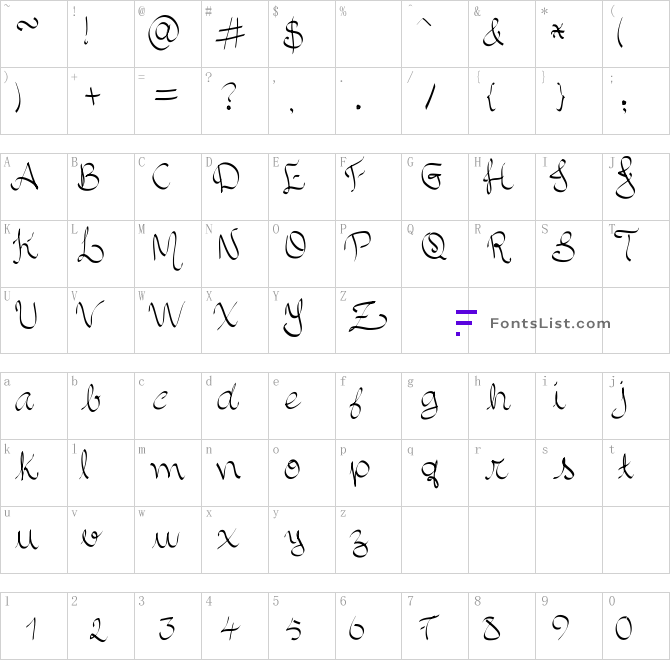
- Font Name:Allura Script
Allura-Script.ttf is a very beautiful artistic font, Allura-Script.ttf is widely used in the design and printing of various books and pictures,Allura-Script.ttf has a strong visual impact,Allura-Script.ttf is a commonly used font in newspapers, magazines and books, and is used in posters, e-commerce Poster design, store design, logo design, font design and other fields.Allura-Script.